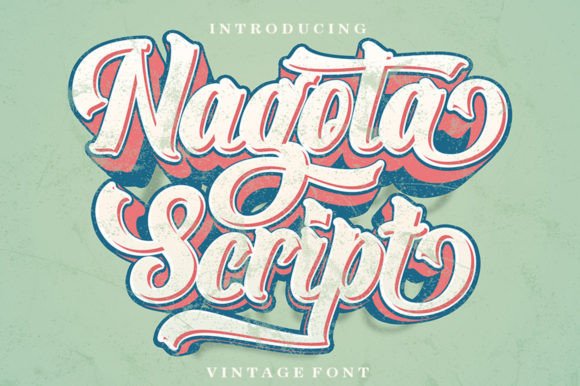
Nagota Font: Elevate Your Designs with Elegance and Uniqueness
In the world of typography, fonts play a crucial role in conveying the tone and personality of a design. With countless options available, finding the perfect font that combines elegance and uniqueness can be a daunting task. However, if you’re looking for a font that stands out from the rest, look no further than Nagota Font. This stunning font is a one-of-a-kind creation that seamlessly blends sophistication and individuality, making it an ideal choice for designers seeking to add a touch of luxury to their projects.
What Makes Nagota Font Special?
Nagota Font boasts an array of distinctive features that set it apart from other fonts. Its ornate details and delicate letterforms are meticulously crafted to evoke a sense of elegance and refinement. The font’s unique design makes it perfect for a variety of applications, including wedding invitations, logos, and other design projects where a distinctive touch is desired.
One of the standout features of Nagota Font is its PUA (Private Use Area) encoding. This means that users can access all the glyphs and swashes with ease, allowing for greater flexibility and creativity in design. With Nagota Font, you can effortlessly incorporate intricate details and flourishes into your work, elevating it to new heights of sophistication.
Ideal Applications for Nagota Font
Nagota Font’s versatility makes it suitable for a wide range of design applications. Here are some of the ideal uses for this stunning font:
- Wedding Invitations: Add a touch of romance and elegance to your wedding invitations with Nagota Font. Its delicate letterforms and ornate details create a beautiful, sophisticated look that’s sure to impress.
- Logos: Create a lasting impression with a custom logo designed using Nagota Font. Its unique blend of elegance and uniqueness makes it perfect for businesses seeking to establish a distinctive brand identity.
- Stationery: Elevate your stationery designs with Nagota Font’s refined and sophisticated aesthetic. From business cards to letterheads, this font is sure to make a lasting impression.
- Packaging: Add a touch of luxury to your product packaging with Nagota Font. Its ornate details and delicate letterforms create a beautiful, high-end look that’s sure to stand out on store shelves.
Tips for Working with Nagota Font
To get the most out of Nagota Font, here are some typography tips to keep in mind:
- Use it sparingly: Due to its ornate nature, Nagota Font works best when used sparingly. Use it for headings or titles, and pair it with a simpler font for body text.
- Experiment with sizes: Nagota Font looks stunning in a variety of sizes. Experiment with different font sizes to find the perfect balance for your design.
- Play with colors: Nagota Font’s delicate letterforms look beautiful in a range of colors. Experiment with different hues and shades to find the perfect match for your design.
Pairing Nagota Font with Other Fonts
Pairing Nagota Font with other fonts can create a beautiful, harmonious design. Here are some font pairing suggestions:
- Serif fonts: Pair Nagota Font with serif fonts like Times New Roman or Garamond for a classic, sophisticated look.
- Script fonts: Combine Nagota Font with script fonts like Pacifico or Great Vibes for a romantic, whimsical design.
- Sans-serif fonts: Pair Nagota Font with sans-serif fonts like Helvetica or Arial for a modern, elegant look.
In conclusion, Nagota Font is a one-of-a-kind creation that combines elegance and uniqueness. Its ornate details and delicate letterforms make it perfect for adding a touch of sophistication to wedding invitations, logos, and other design projects where a distinctive touch is desired. With its PUA encoding, users can access all the glyphs and swashes with ease, allowing for greater flexibility and creativity in design. Whether you’re a seasoned designer or just starting out, Nagota Font is sure to elevate your designs to new heights of elegance and refinement.